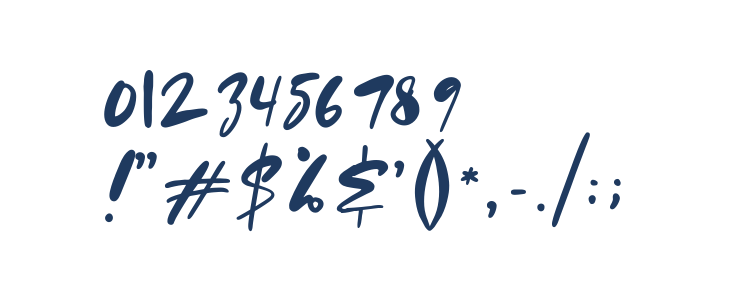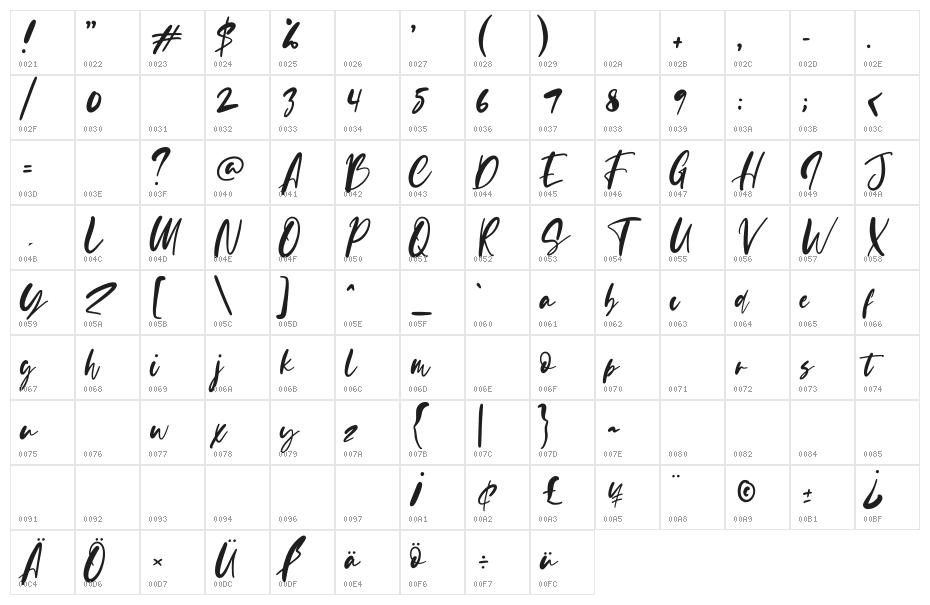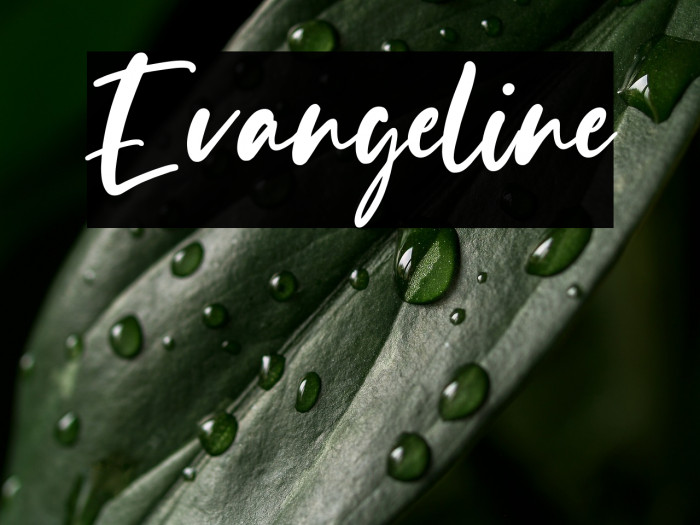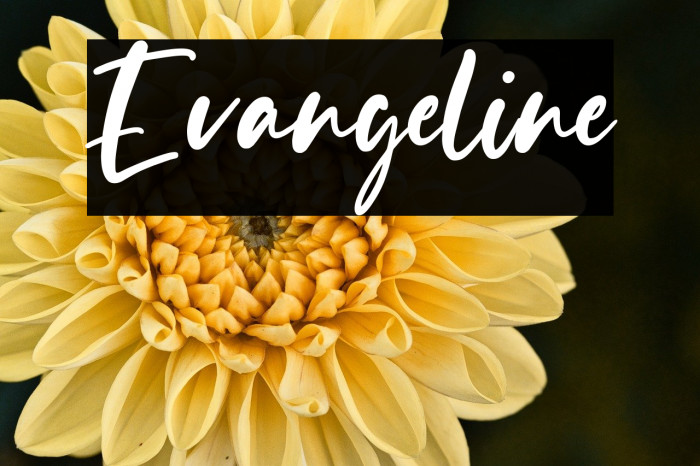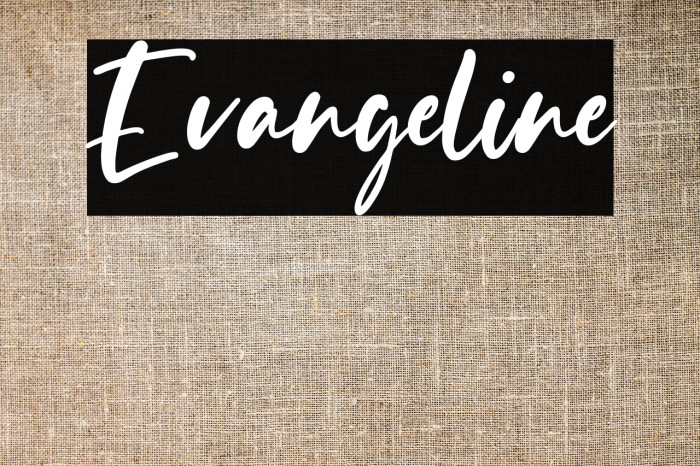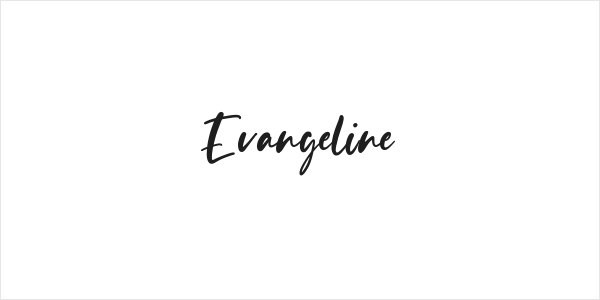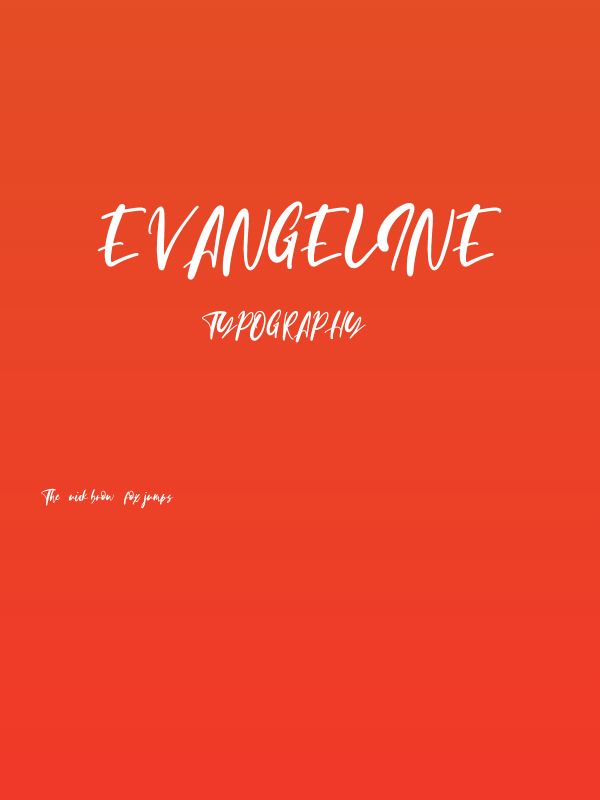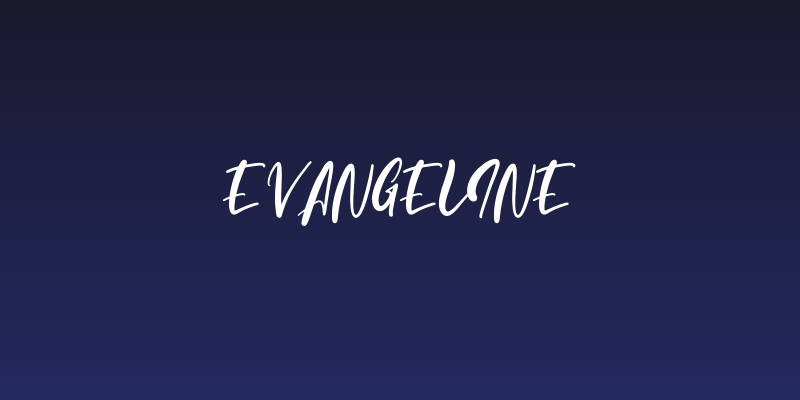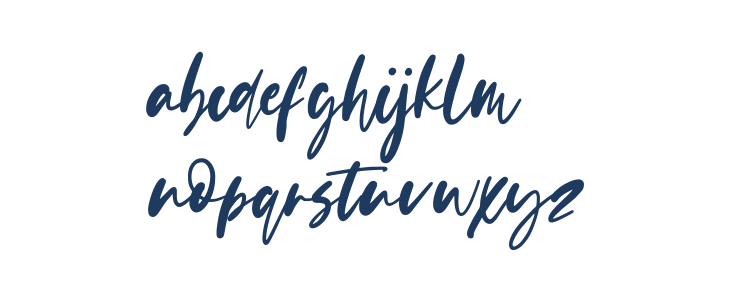
Evangeline Font
Evangeline Description
This font exhibits a dynamic and expressive handwritten style, characterized by its fluid and cursive letterforms. The uppercase letters are bold and slightly slanted, giving a sense of movement and energy. The lowercase letters maintain a consistent flow, with some characters featuring unique loops and swashes that add to the overall artistic flair. The numerals are bold and maintain the same handwritten aesthetic, making them stand out while remaining cohesive with the alphabet. Special characters are creatively designed, with a playful yet sophisticated touch. This font is ideal for projects that require a personal and artistic touch, such as invitations, branding, and creative posters.